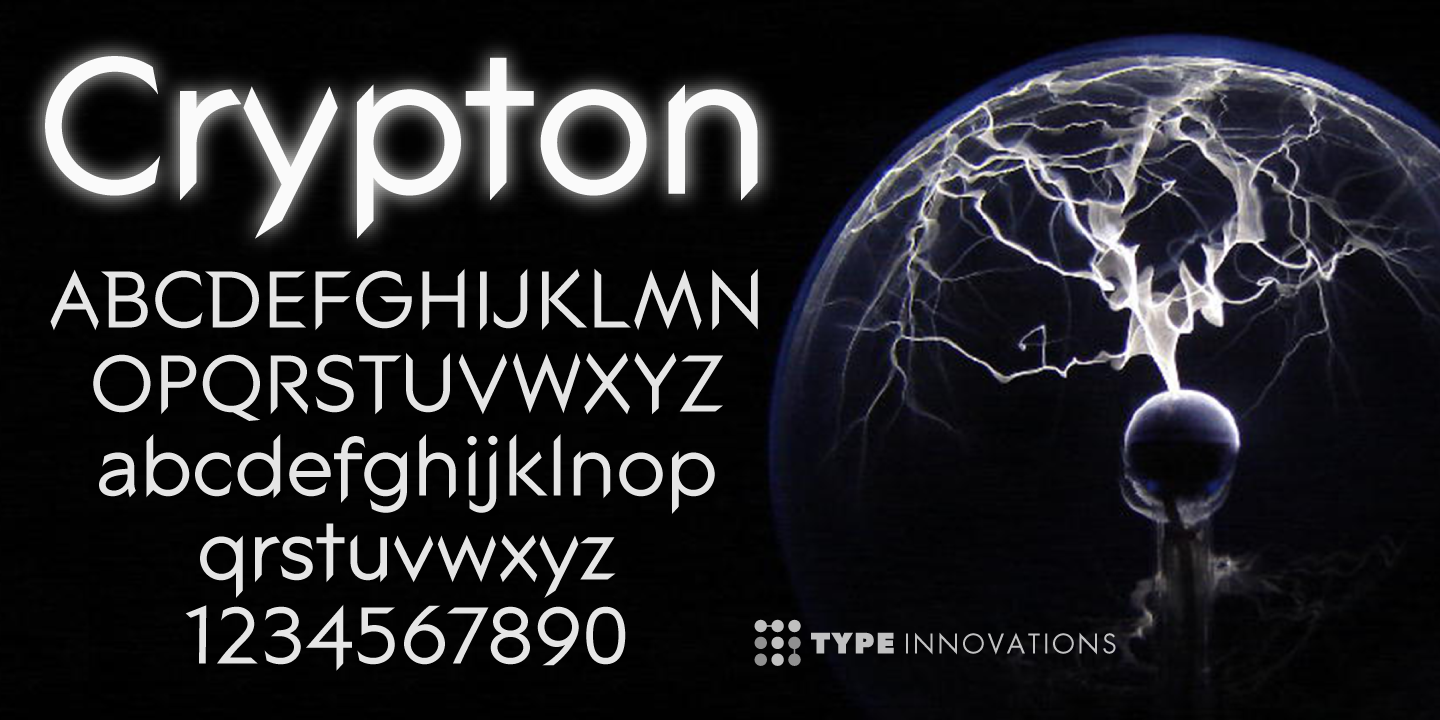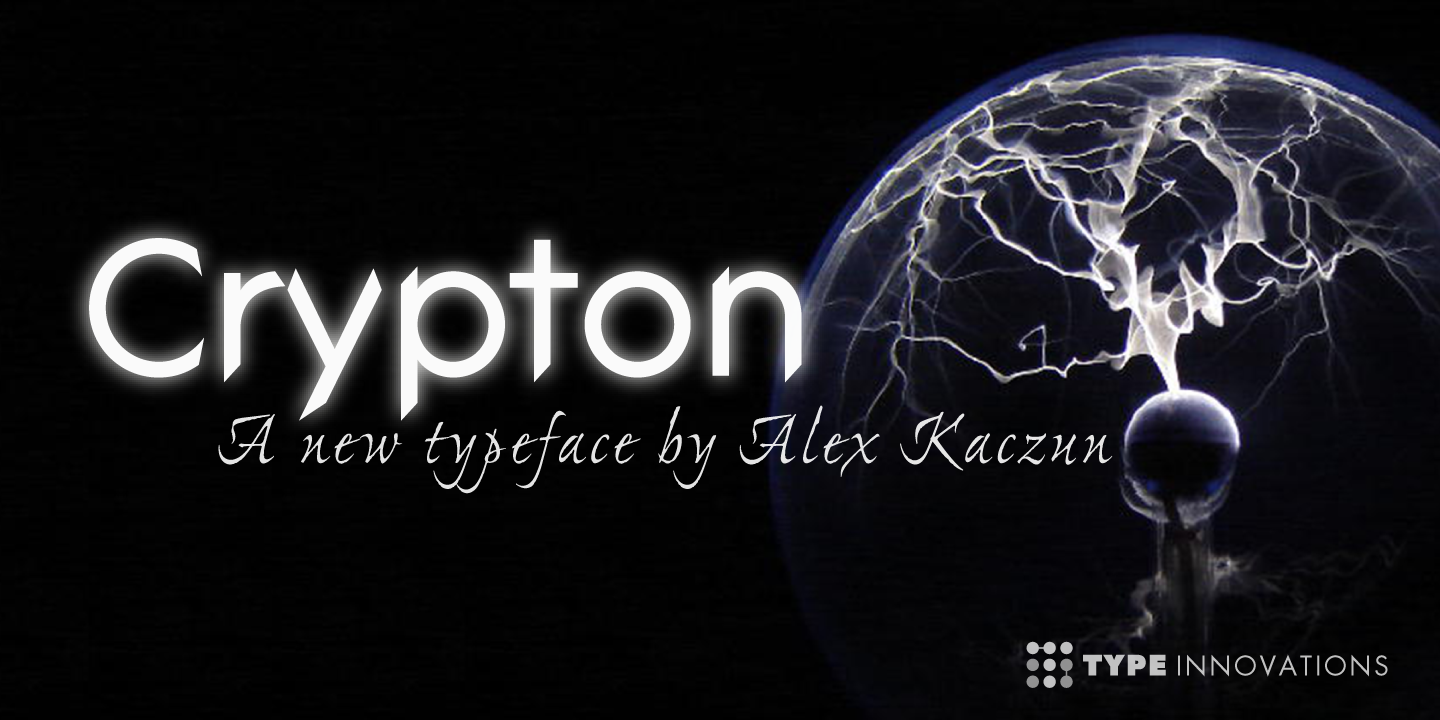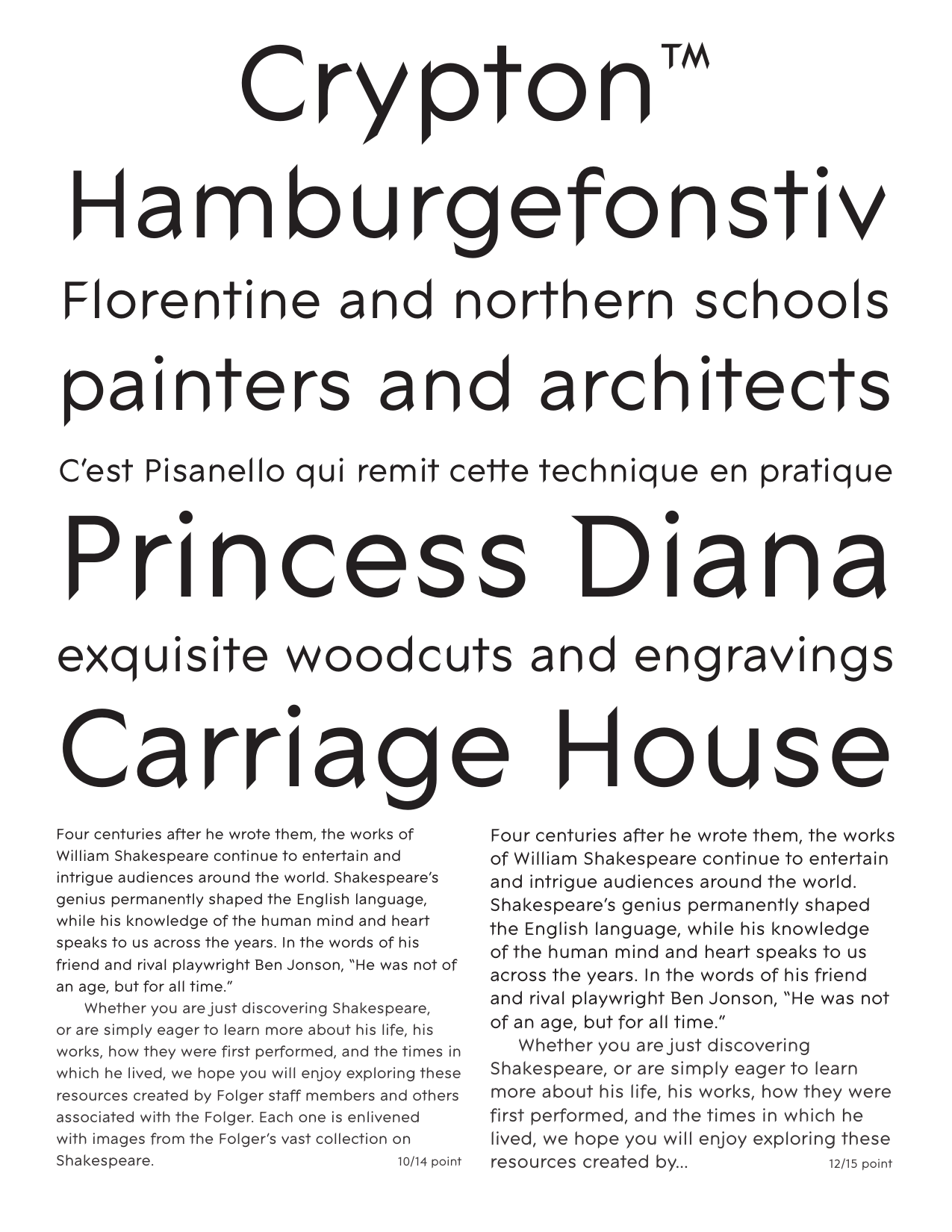
Crypton
Crypton is a modern geometric design by Alex Kaczun. It’s an alternate style variation based on his popular Contax Pro family of fonts. The look is clean, smart and sofisticated—the chiseled end strokes reflect the rage of the 1980s; lettering that represented something to do with electronics, computers and outer space. It’s a futuristic sans-serif exploration of shape and form.
This display font is not intended for text use. It was designed specifically for display headlines, logotype, branding and similar applications. The entire font has an original look which is strong and dynamic—it can be widely used in publications and advertising.
Crypton is a futuristic, techno-looking and expressive typeface with the appearance of machined-like parts—round geometric shapes and sharp edges. This attractive display comes in roman with lower case and lining figures.
The large Pro font character set supports most Central European and many Eastern European languages.